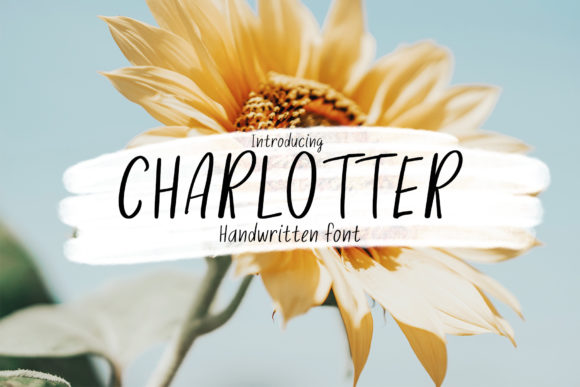
Introducing Charlotter Font: The Simple yet Versatile Handwritten Font
Are you a designer or crafter looking for a font that can add a personal touch to your projects? Look no further than Charlotter Font! This simple and friendly handwritten font is perfect for a wide range of designs, from digital media to print materials. In this article, we’ll explore the unique features of Charlotter Font and how it can elevate your creative projects.
A Natural and Unique Style
Charlotter Font boasts a natural and unique style that sets it apart from other fonts. Its handwritten charm makes it instantly relatable and approachable, perfect for designs that require a personal touch. The font’s simplicity and friendliness ensure that it can be used in a variety of contexts, from children’s books to branding materials.
The versatility of Charlotter Font is one of its most significant advantages. Its natural and unique style makes it incredibly fitting to a large pool of designs, and the only limit is your imagination! Whether you’re creating:
- Digital media, such as social media graphics, blog posts, or email newsletters
- Print materials, like brochures, flyers, or business cards
- Crafting projects, including handmade cards, scrapbooking, or DIY decorations
- Branding materials, such as logos, packaging, or website headers
Charlotter Font can be used to add a touch of personality and whimsy to your designs.
Why Choose Charlotter Font?
So, what makes Charlotter Font a top choice for designers and crafters? Here are just a few reasons:
- Easy to read: Charlotter Font is clear and legible, making it perfect for body text or headings.
- Flexible: The font can be used in a variety of sizes and styles, from bold and playful to delicate and elegant.
- Unique: Charlotter Font has a distinct personality that will set your designs apart from the crowd.
- High-quality: The font is professionally designed and crafted to ensure a high level of quality and consistency.
Tips for Using Charlotter Font
To get the most out of Charlotter Font, here are some tips to keep in mind:
- Experiment with different sizes and styles: Charlotter Font can be used in a range of sizes and styles to create visual interest and hierarchy.
- Pair with other fonts: Charlotter Font pairs well with other fonts, such as sans-serif or serif fonts, to create a unique and harmonious combination.
- Add embellishments: Consider adding embellishments, such as illustrations or graphics, to enhance the font’s playful and whimsical feel.
Charlotter Font is a simple yet versatile handwritten font that can add a personal touch to your designs. Its natural and unique style makes it incredibly fitting to a wide range of projects, and the only limit is your imagination! With its ease of use, flexibility, and high-quality design, Charlotter Font is an excellent choice for designers and crafters looking to elevate their creative projects.